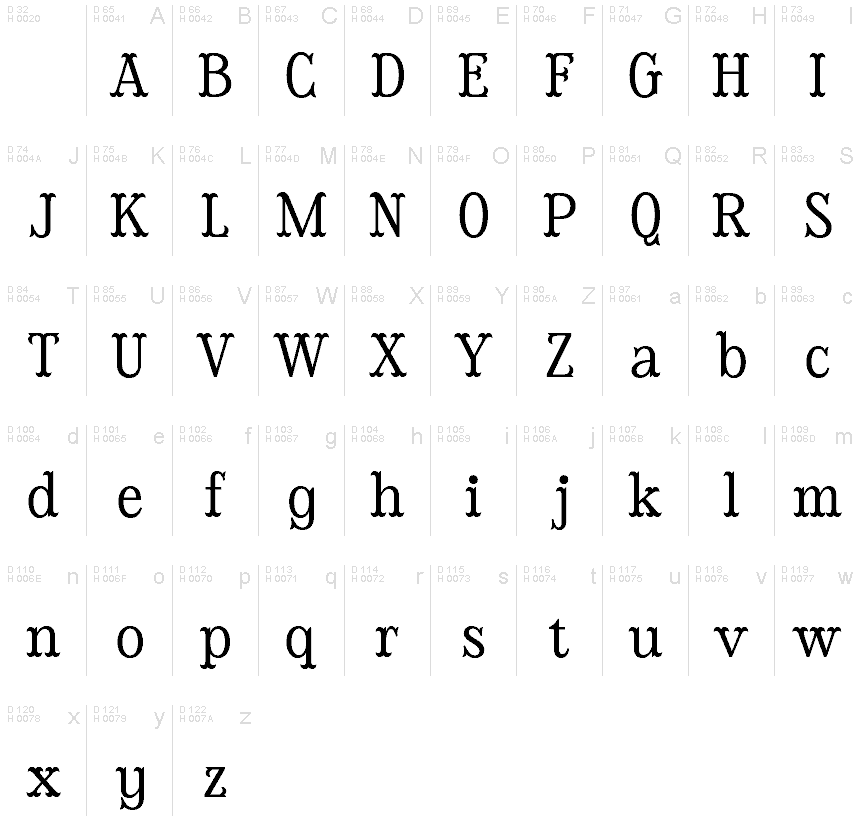
CS Amadeus Regular Demo
CS Amadeus font by Craft Supply Co. is a free serif font that embodies elegance, sophistication, and classic styling. Its formal and refined design makes it a perfect typeface for creating extraordinary artworks akin to Amadeus opera’s legendary grace. As you explore this wonderful offer, remember to use it wisely in your business-oriented projects of all kinds.
Allow CS Amadeus to be the lovely font featured on your poster designs, card games typography, logo designs, ads text lines, magazine covers or titles in books. The available use cases also include social media post headers or content body type or other online spaces like websites or blogs.